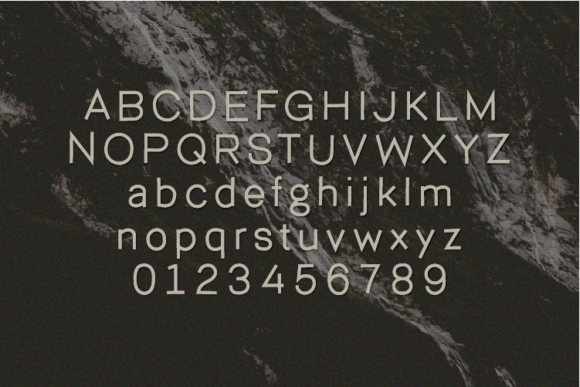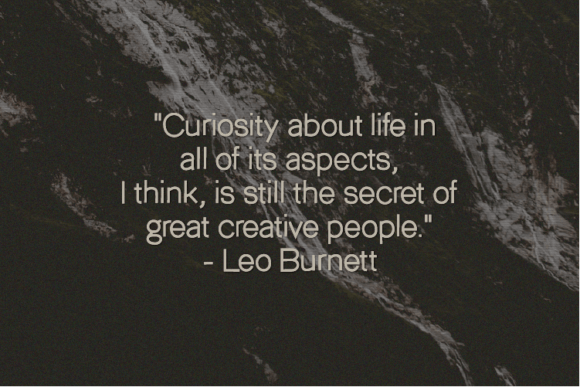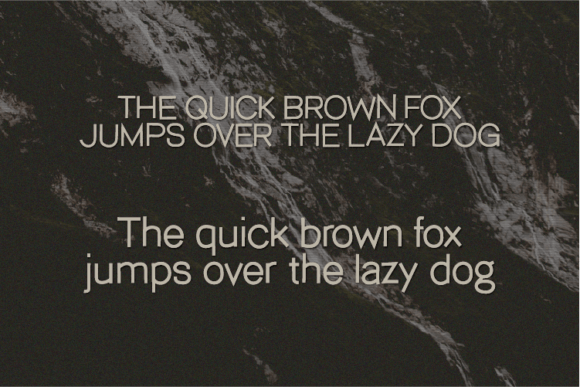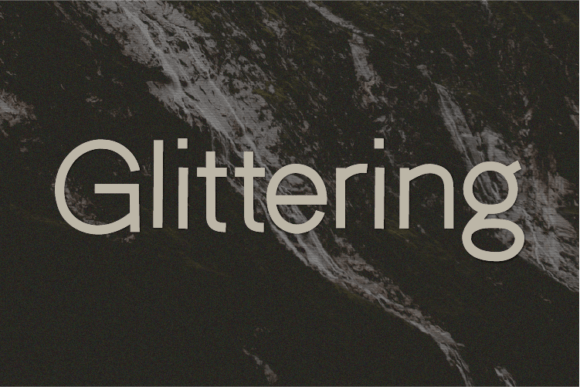
Introducing Glittering Font: The Unique Sans Serif Font for Creative Designs
Are you tired of using the same old fonts for your designs? Look no further! Glittering Font is a game-changer for designers and crafters alike. This natural sans serif font is made without changing a single node in each character’s indentation, making it a truly unique and interesting addition to your design toolkit.
What Makes Glittering Font So Special?
Glittering Font’s uniqueness lies in its natural, unaltered design. Unlike other fonts that have been heavily manipulated or modified, Glittering Font stays true to its original form. Each character’s indentation remains intact, giving the font a distinctive and organic feel. This makes it perfect for designs that require a touch of personality and whimsy.
Perfect for Quotes, Notes, Tees, and More
Glittering Font is incredibly versatile and can be used for a wide range of design projects. Here are some ideas to get you started:
- Quotes: Add a touch of glamour to your inspirational quotes with Glittering Font. Its unique design makes it perfect for social media posts, printables, and more.
- Notes: Use Glittering Font to add a personal touch to your notes and journal entries. Its sans serif design makes it easy to read and understand.
- Tees: Create eye-catching t-shirt designs with Glittering Font. Its bold and playful design is sure to turn heads.
- Product Design: Use Glittering Font to add a touch of personality to your product designs. From packaging to branding, this font is sure to make your products stand out.
Why Designers and Crafters Love Glittering Font
Glittering Font has quickly become a favorite among designers and crafters due to its unique design and versatility. Here are some reasons why:
- Unique Design: Glittering Font’s natural, unaltered design makes it a standout among other fonts.
- Easily Readable: Despite its unique design, Glittering Font is easy to read and understand, making it perfect for body text and captions.
- Highly Versatile: Glittering Font can be used for a wide range of design projects, from quotes and notes to tees and product design.
Tips for Using Glittering Font
Here are some tips for getting the most out of Glittering Font:
- Experiment with Colors: Glittering Font looks great in a variety of colors, so don’t be afraid to experiment and find the perfect hue for your design.
- Mix and Match: Combine Glittering Font with other fonts to create a unique and eye-catching design.
- Use it for Headings: Glittering Font’s bold design makes it perfect for headings and titles.
Glittering Font is a unique and versatile addition to any design toolkit. Its natural, unaltered design makes it perfect for designers and crafters looking to add a touch of personality to their designs. Whether you’re creating quotes, notes, tees, or product designs, Glittering Font is sure to make your projects stand out. So why wait? Download Glittering Font today and start creating!